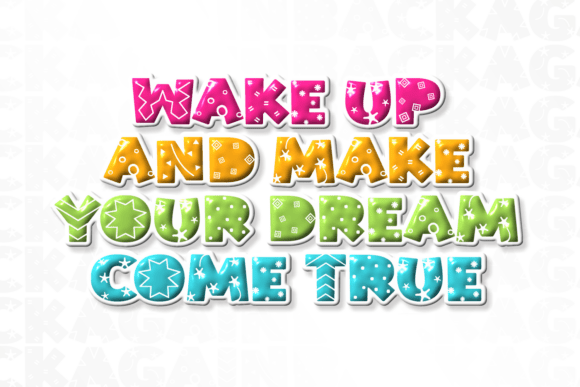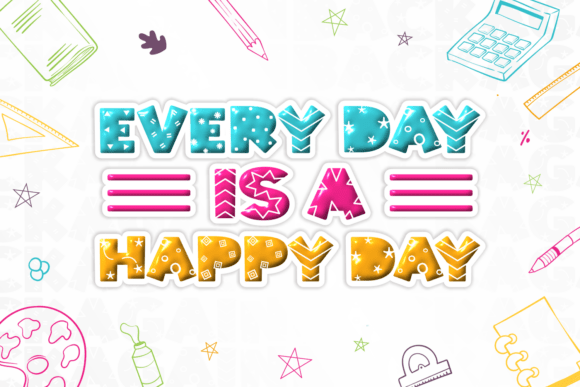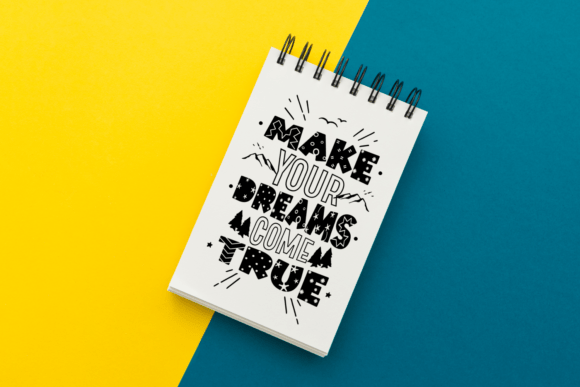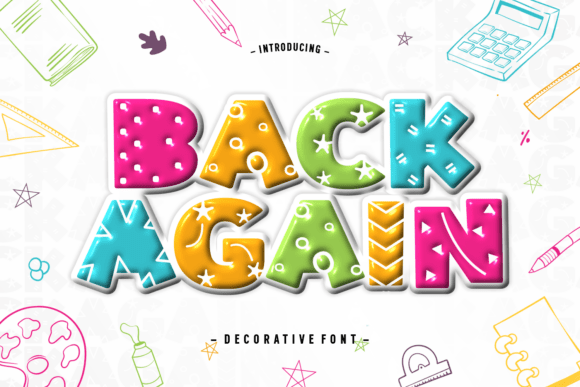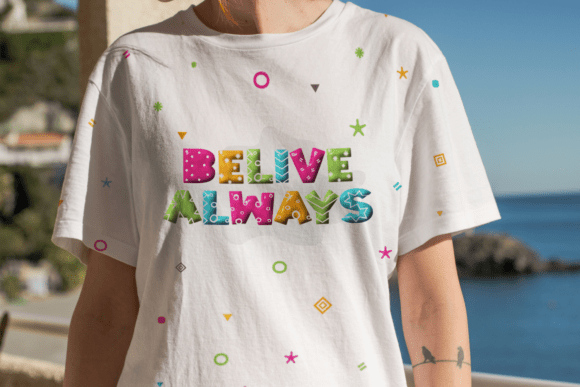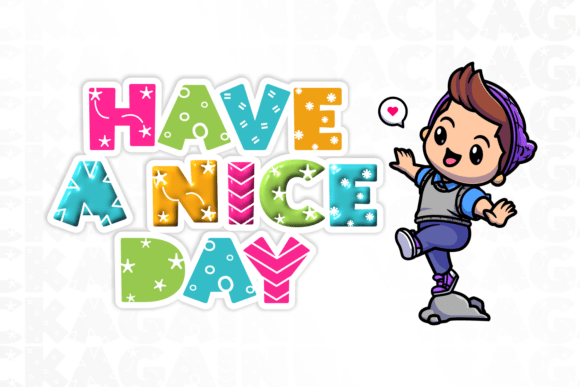
Back Again Font
Back Again is a playful decorative display font bursting with color, character, and fun. Each letter is styled with bold shapes and patterns, making it perfect for projects that need a cheerful and eye-catching look.
Ideal for children’s books, posters, party invitations, T-shirts, packaging, logos, stickers, and social media graphics, this font adds energy and joy to any design. Its quirky and vibrant personality makes it especially suited for DIY crafts, Cricut and Silhouette projects, and creative event materials.
Bring life and playfulness to your creations with Back Again Font—a decorative typeface that’s bold, fun, and unforgettable!